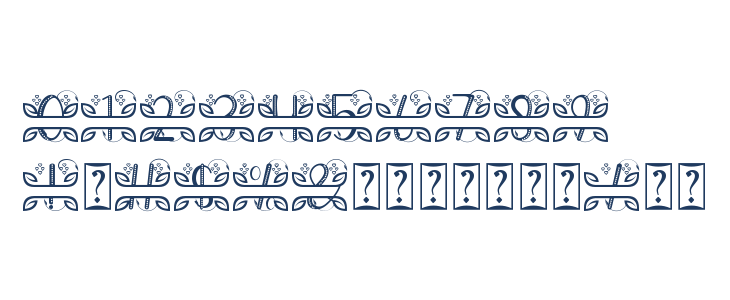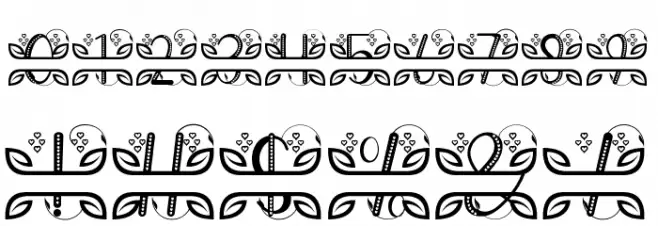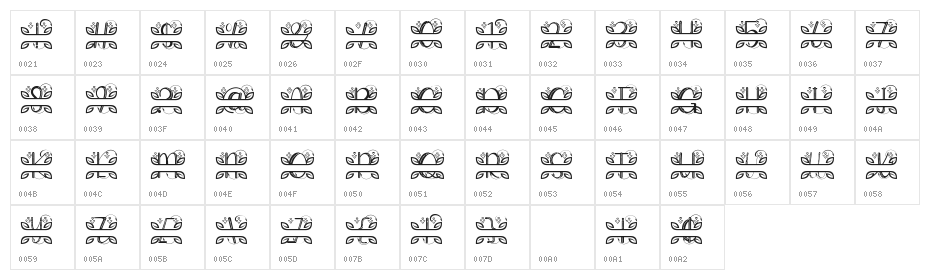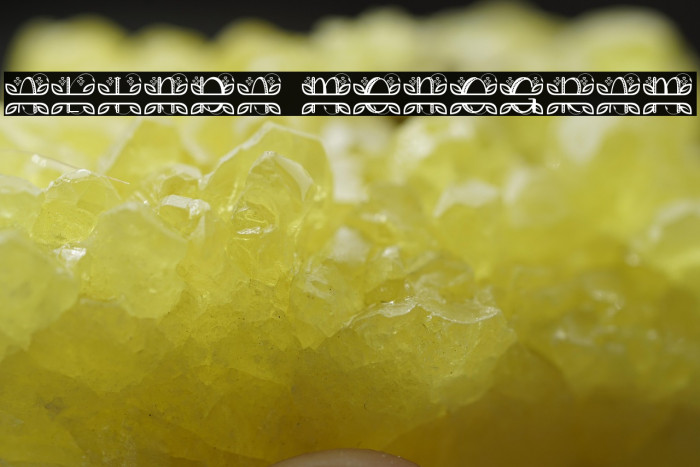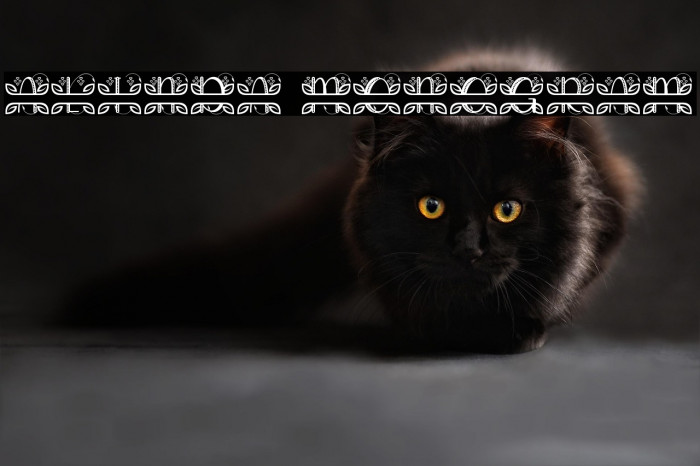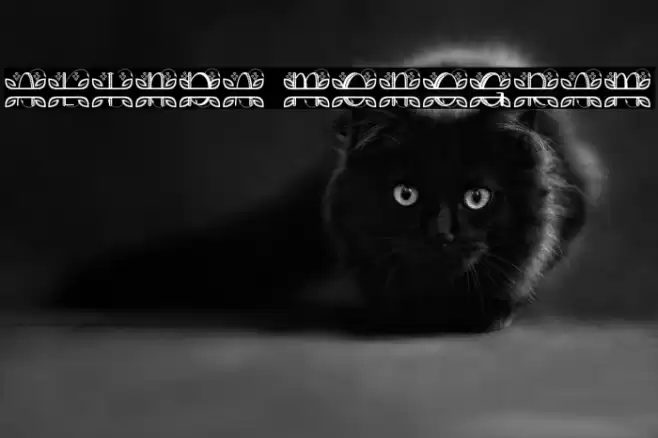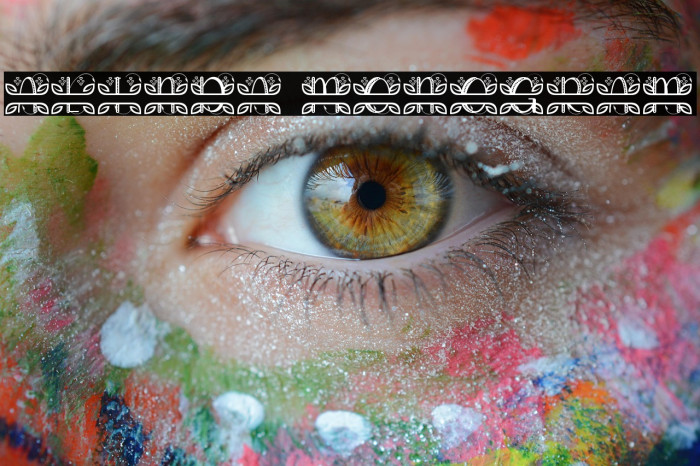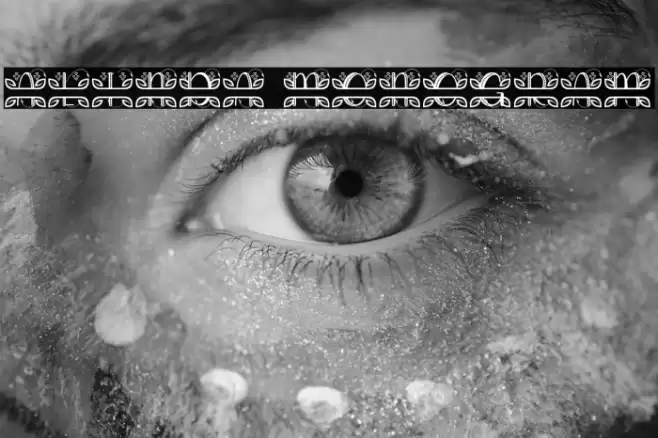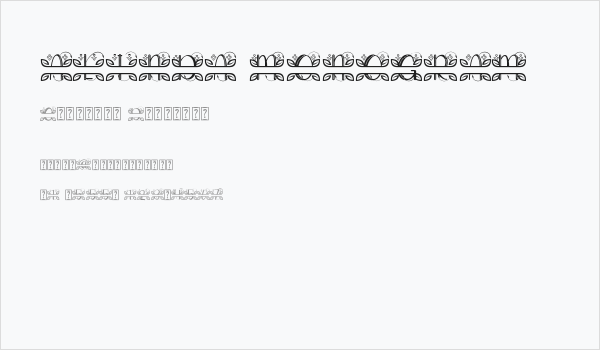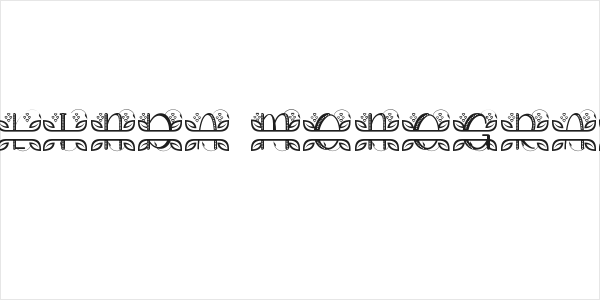
ALINDA MONOGRAM Font
ALINDA MONOGRAM Description
This font features an intricate and decorative style, characterized by elaborate monogram designs. Each character is adorned with ornate flourishes and embellishments, creating a sense of elegance and sophistication. The letters are intertwined with decorative elements that resemble floral motifs, adding a touch of artistry and craftsmanship. The overall appearance is highly stylized, making it suitable for projects that require a luxurious and unique aesthetic. The font's detailed design suggests a handcrafted quality, perfect for creating personalized monograms or decorative initials.
| Use Case | Logos, Invitations, Decorative elements |
| Proposed Projects | Ideal for wedding invitations, luxury branding, personalized monograms, and decorative initials. |